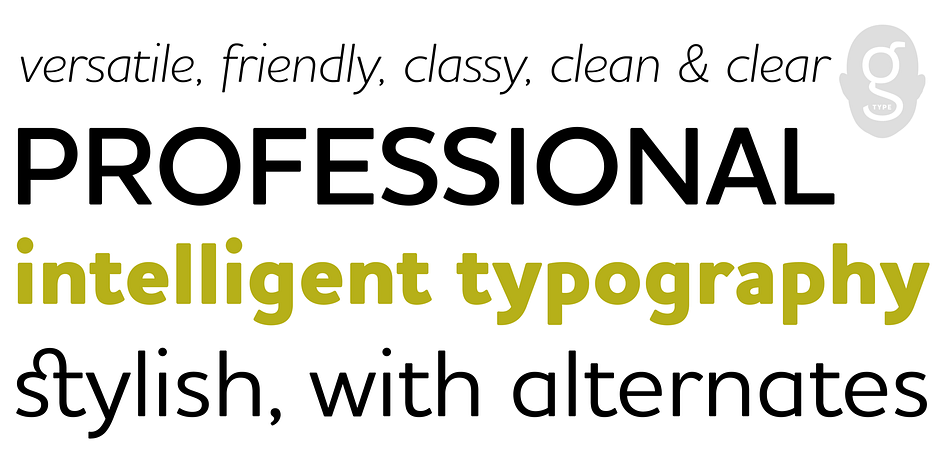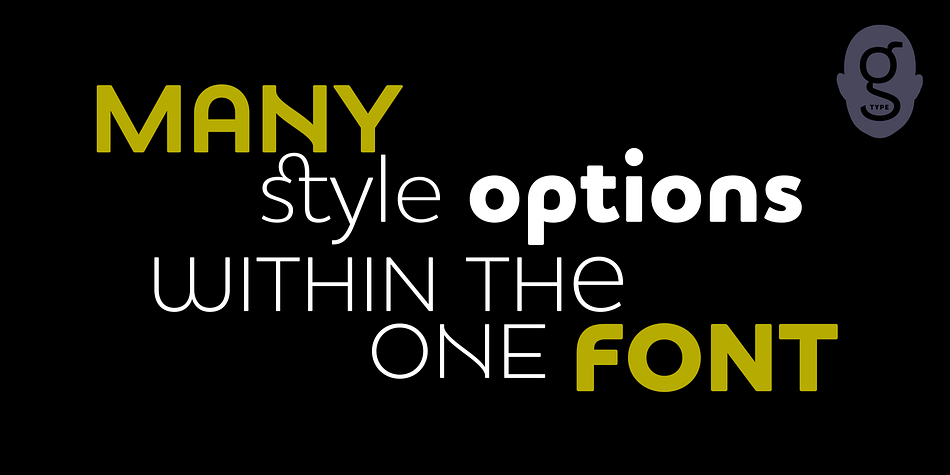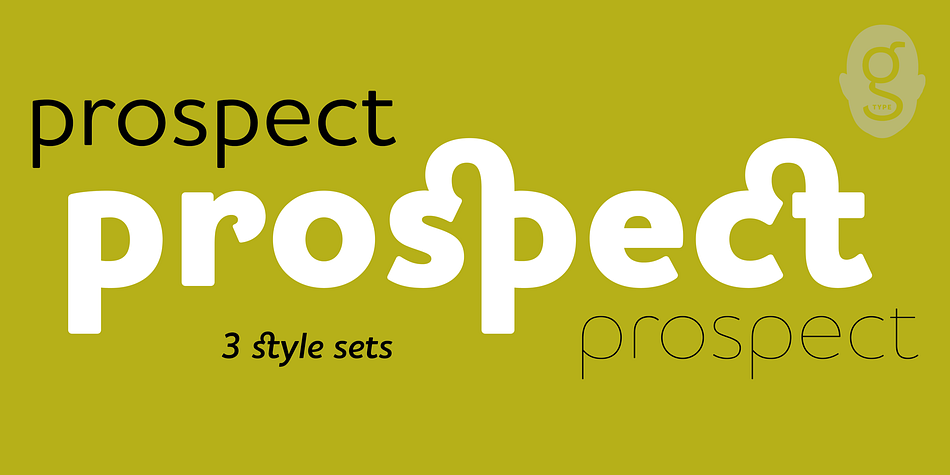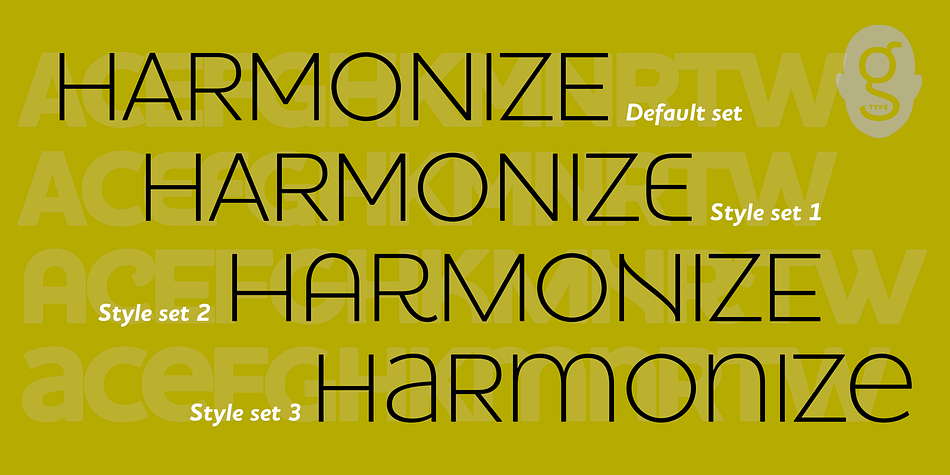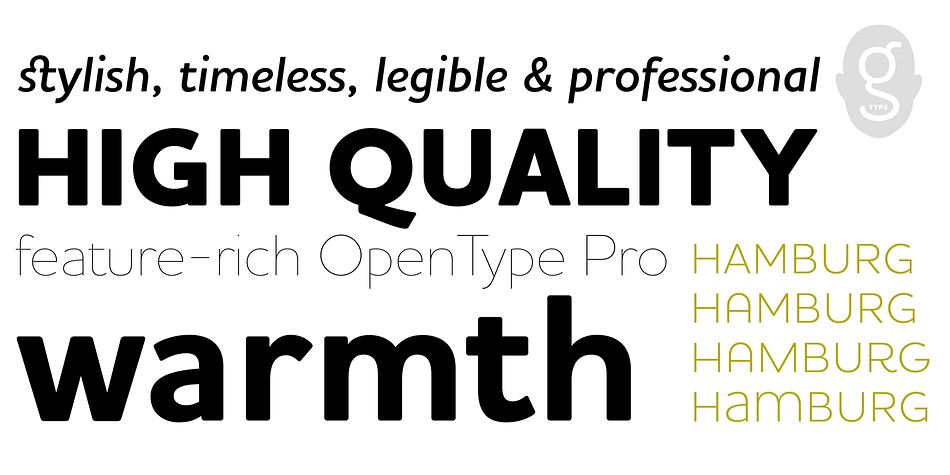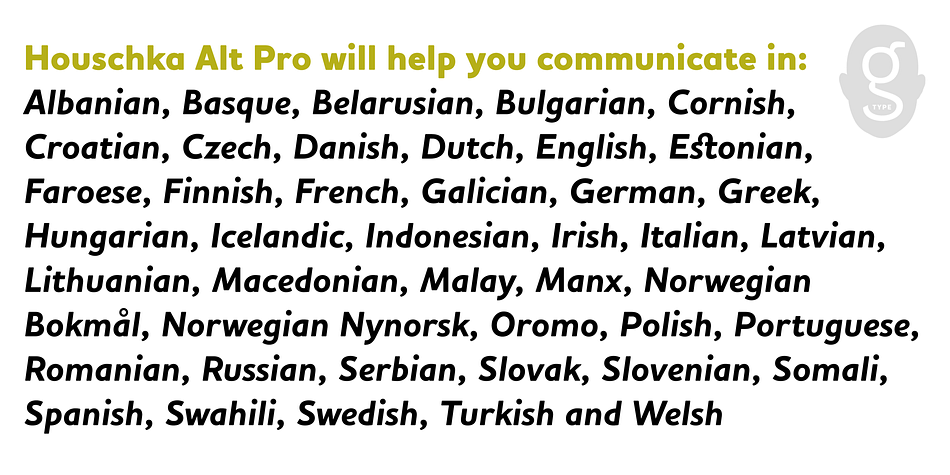
Designed by Nick Cooke, Houschka Alt Pro is a sans serif font family. This typeface has twelve styles and was published by G-Type.
Houschka Alt Pro is a carbon copy of our Houschka Pro font with one key difference: the rounded signature glyphs A & W on the default positions swap places with their straight alternates.
Houschka was named after Georg Houschka, a sadly defunct confectioner’s shop in Salzburg, Austria, which had a wonderful 1930’s frontage and distinctively rounded letterforms in the sign above the door.
Houschka (Alt) Pro is the follow up to the original Houschka type family which first appeared in 1999.
Character shapes have been improved, kerning and spacing refined, and OpenType features include CE, Baltic, Turkish & Cyrillic language support plus small caps, 3 stylistic sets, contextual alternates, ligatures and 4 sets of numerals.
Houschka is a clean and legible modern sans serif font which shares the humanist qualities of Gill Sans & Johnston but retains a uniquely charming character of its own. Rounded corners and rolling curves give Houschka a soft and friendly appearance.